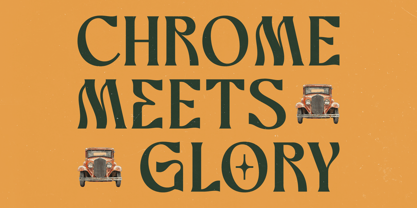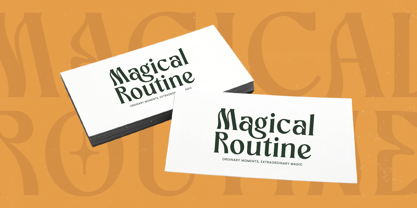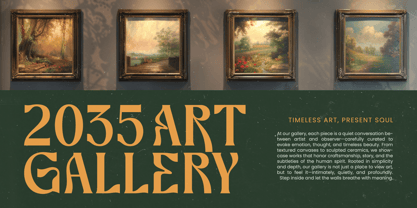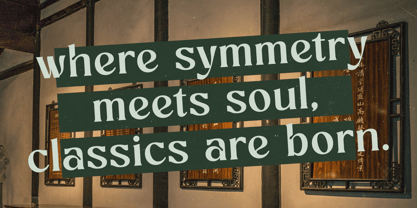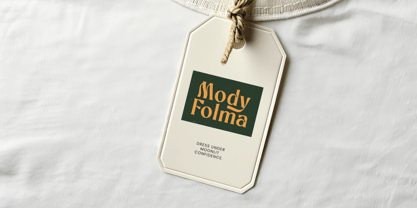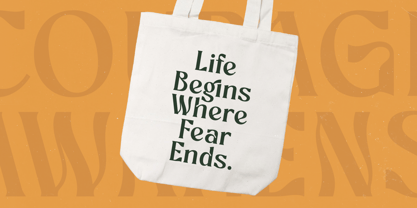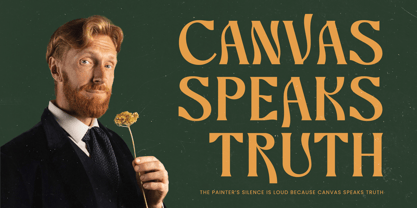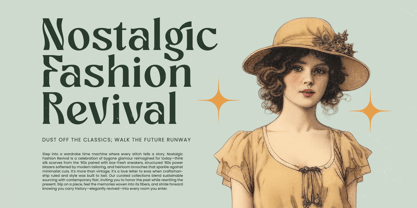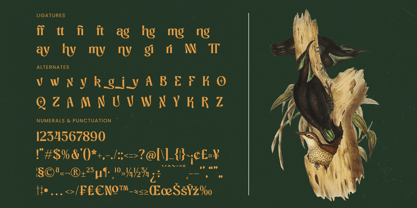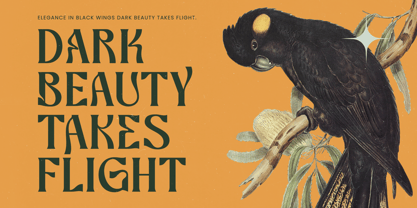
Bottarie
by Timelesstype Studio
The Bottarie Font Family was designed by Heru Utama Putra and published by Timelesstype Studio. Bottarie contains 2 styles and family package options.
Bottarie - Freestyle Display Font , from Timelesstype, Suitable for any projects such as: logos, branding projects, homeware designs, product packaging, mugs, quotes, posters, shopping bags, t-shirts, book covers, name card, invitation cards, greeting cards, label, photography, watermark, special events, and all your other luxury and beautiful projects that need a Luxury Serif taste.